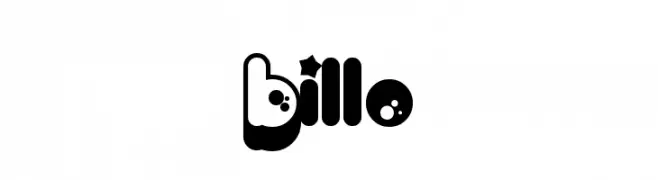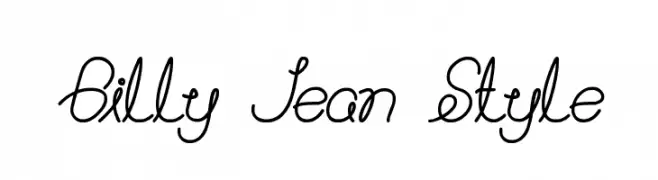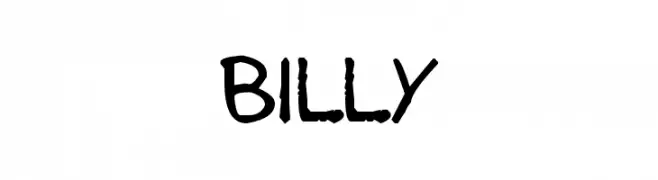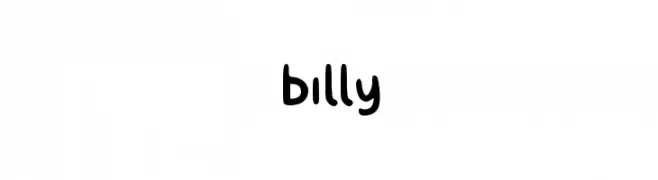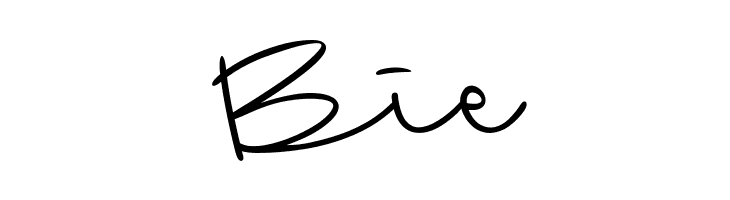
A graceful and flowing script font with elegant, fluid letterforms.
A modern cursive font with a smooth, handwritten style.
A playful, bold font with bubble-like, three-dimensional letters.
A dynamic, cursive-like font with flowing strokes and elegant design.
A dynamic, cursive script font with flowing, expressive characters.
A playful, rounded, and informal font with a handwritten feel.
A playful and whimsical script font with flowing, interconnected letters.
A bold, cursive font with interconnected characters and a playful style.